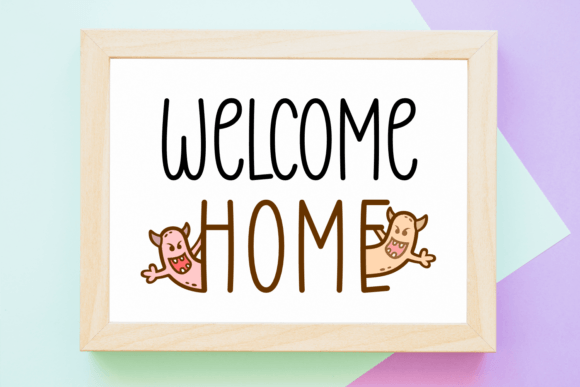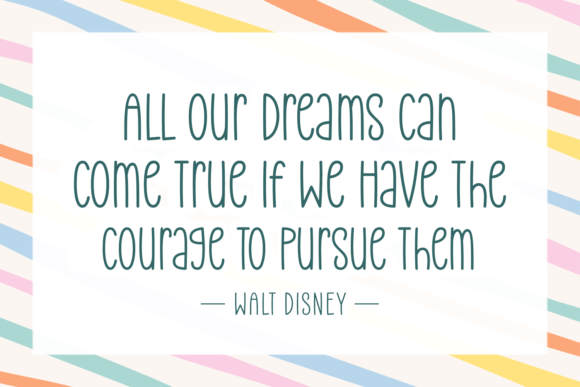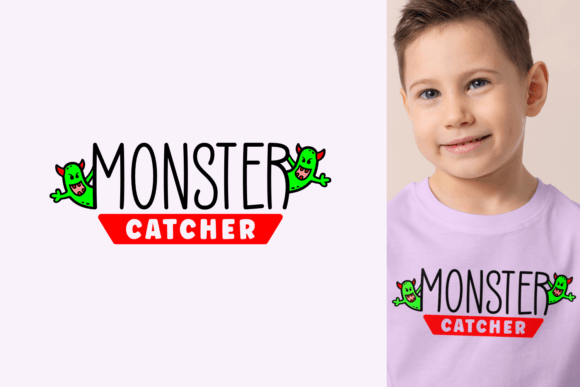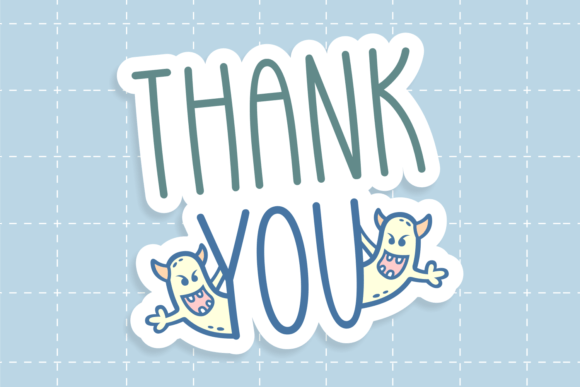
Introduction to Monela Font Font
Fonts play a crucial role in design, and the Monela Font font is a typeface that brings both character and versatility to any project. Whether you’re working on a branding project, a website, or a print design, the Monela Font font offers a unique style that can elevate your work.
Monela is a cute and original decorative font.
These spooky little monsters will help you create outstanding kid-friendly designs Get this unique typeface and use it for Halloween-themed projects, decorations, t-shirts, posters, baby onesies, and more.
The Monela Font font is more than just a typeface – it’s a design tool that helps you communicate your message with style and clarity. Its unique character set and versatile design make it suitable for a wide range of applications, from elegant invitations to bold headlines.
With its carefully crafted letterforms and balanced proportions, the Monela Font font ensures readability and visual appeal across all mediums.
The Monela Font font stands out with its unique design, exceptional readability, and versatility across various design applications.